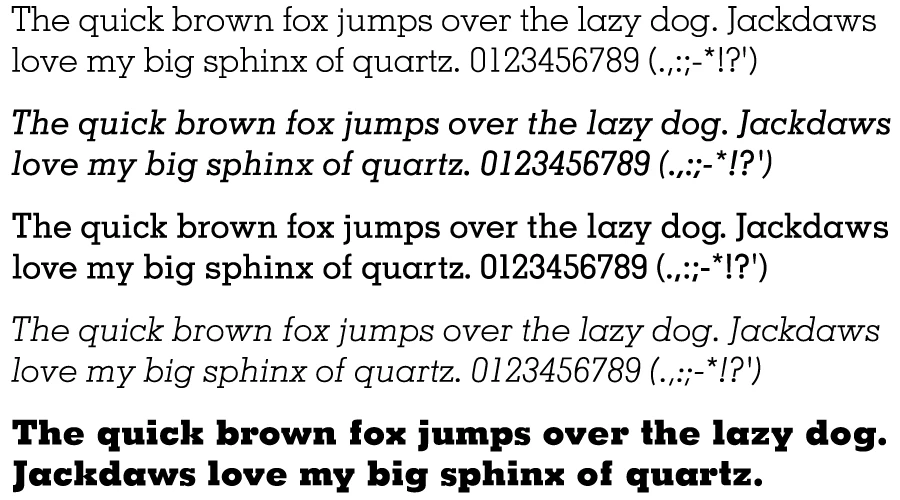
Memphis is a geometric slab serif typeface font which is reflecting the style of German geometric sans-serifs. Rudolph Wolf designed this font and was one of the most popular display fonts of its time. Dr. Rudolph Wolf designed Memphis in 1925 and released through The Stempel Type Foundry. This font was named after the ancient Egyptian capital Memphis.
Memphis is a perfect typeface for display applications including advertising, packaging, and headlines. This font was very common in print work in ancient Egyptian times.
This font is also very useful for branding and designing. You can easily create logos, banners, brochures, posters, presentations, book covers and many more.
You can also use this font for official work. Due to the elegant typography of this font, it can be easily used for official documents and printing.
Memphis Font View
Name | Memphis Font |
Style | Slab serif |
Author | Rudolph Wolf |
Font Family
- Memphis Light.
- Memphis Light Italic.
- Memphis Roman.
- Memphis Bold.
- Memphis Bold Italic.
- Memphis Extra Bold.
- Memphis Medium.
- Memphis Medium Italic.
- What type of font is Memphis?